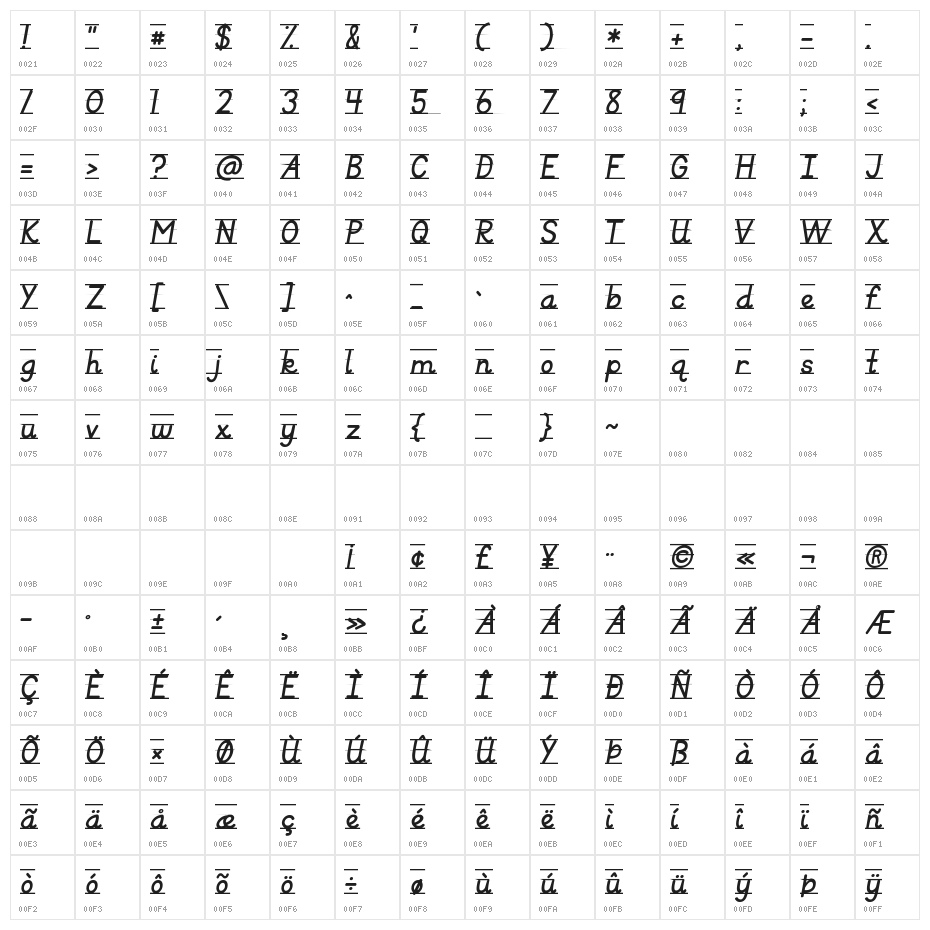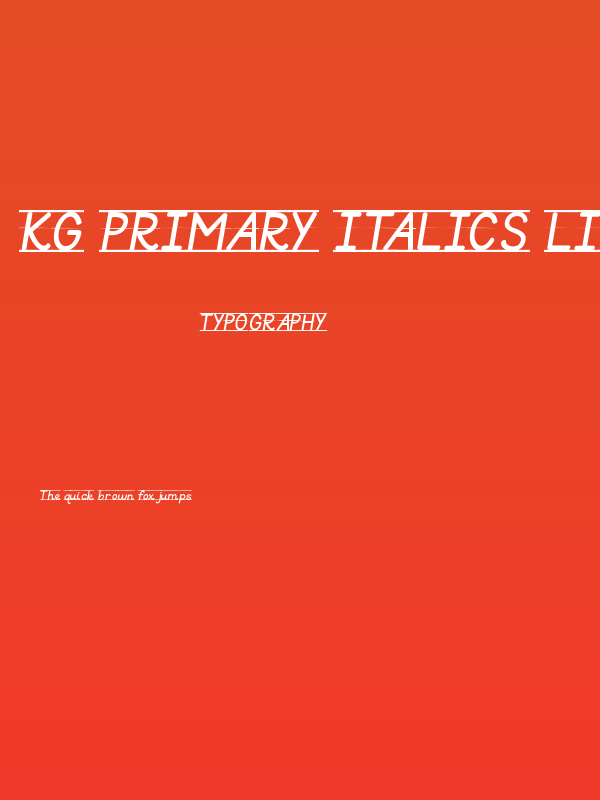
KG Primary Italics Lined Font
KG Primary Italics Lined Description
This font features a playful and educational style, reminiscent of handwriting practice sheets used in primary education. The characters are italicized, giving them a dynamic and flowing appearance. Each letter is carefully crafted with a consistent slant, adding a sense of movement and liveliness. The uppercase and lowercase letters maintain a uniform height, making them easy to read and suitable for educational materials. The numbers and special characters are designed with the same playful style, ensuring consistency across all elements. The font's lined background suggests its use in teaching environments, helping young learners understand letter formation and spacing.
| Overall Style | Educational, Playful |
| Use Case | Educational materials, Handwriting practice |
| Proposed Projects | Ideal for educational materials, children's books, classroom posters, and handwriting practice sheets. |